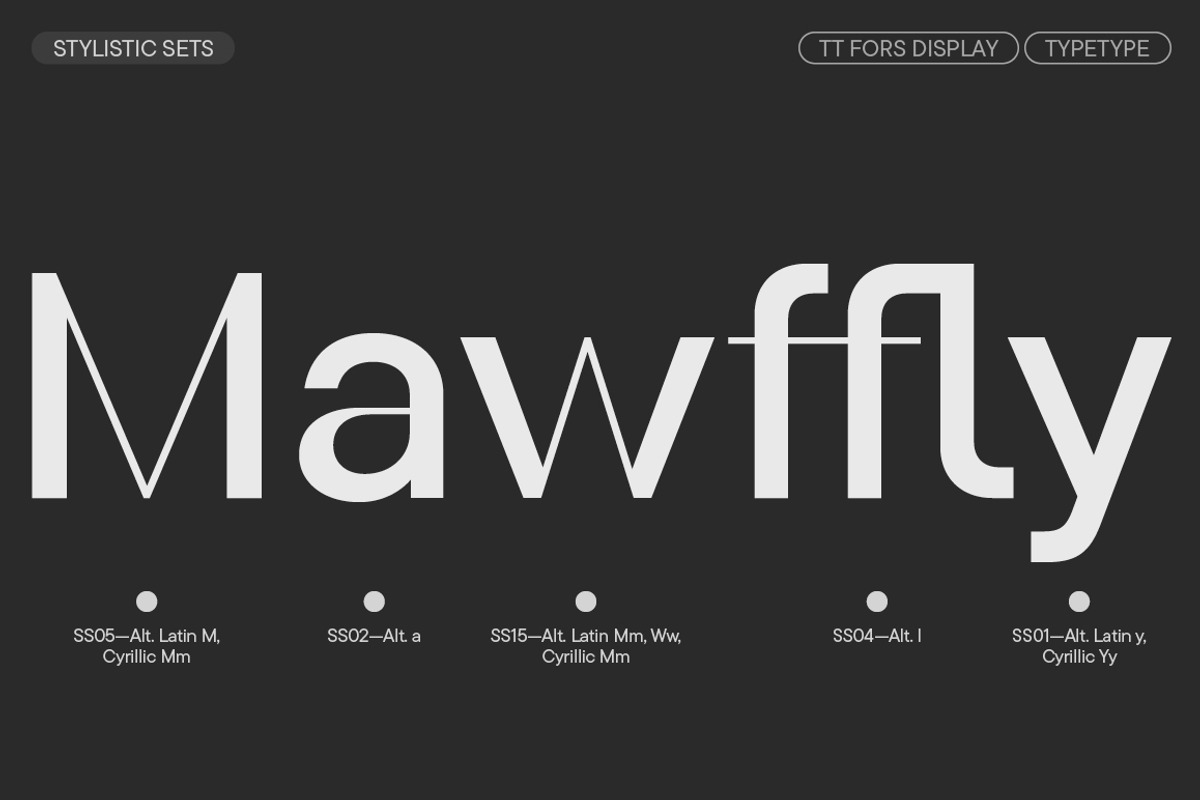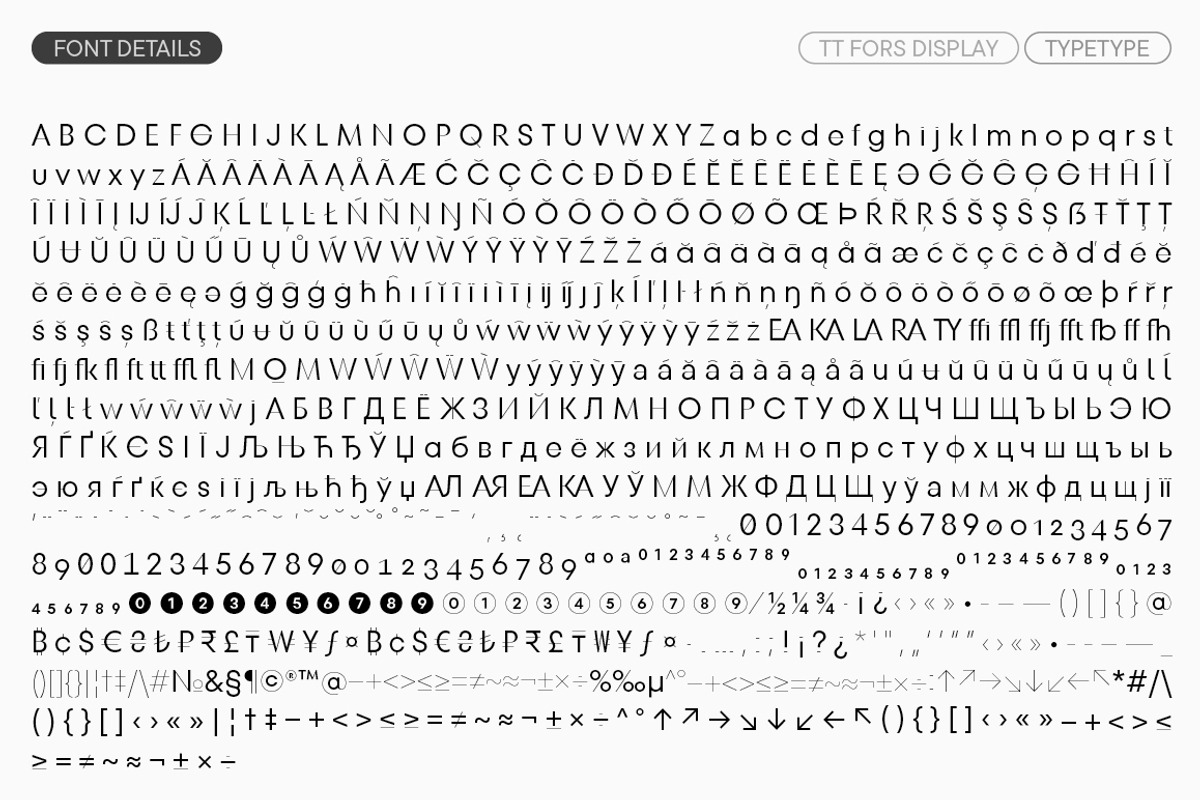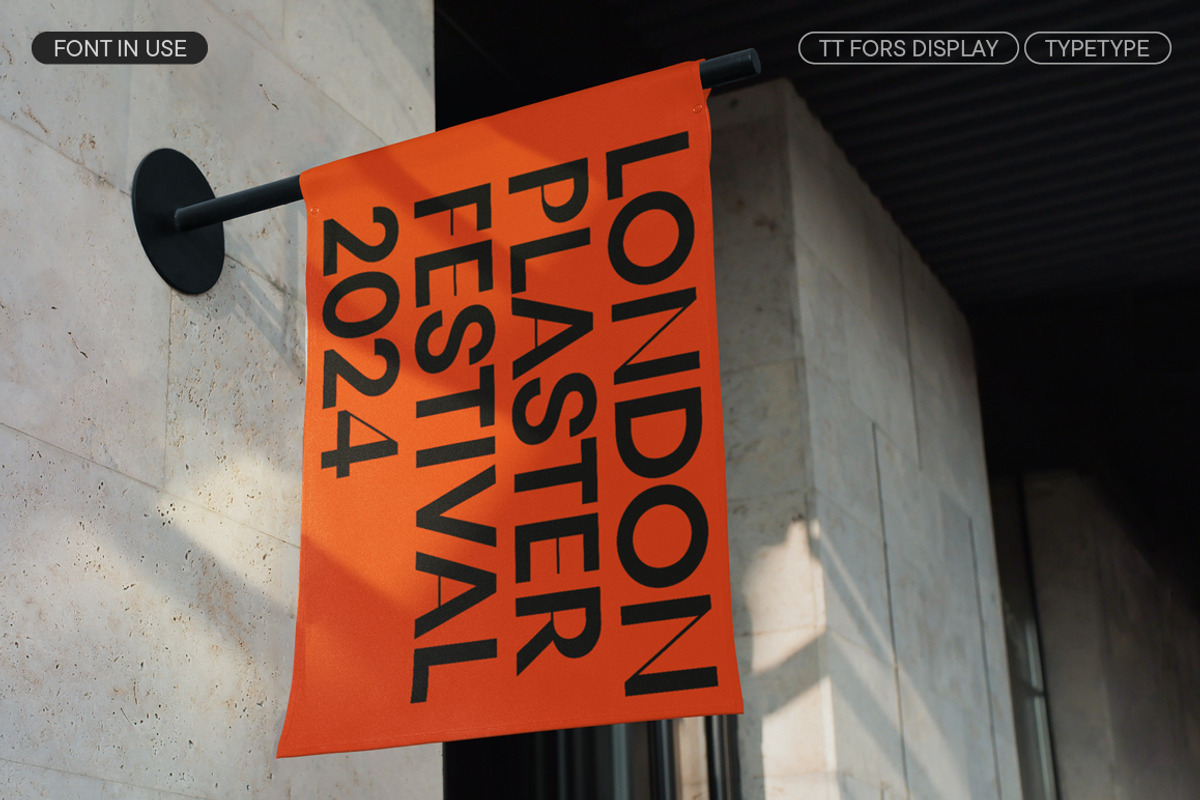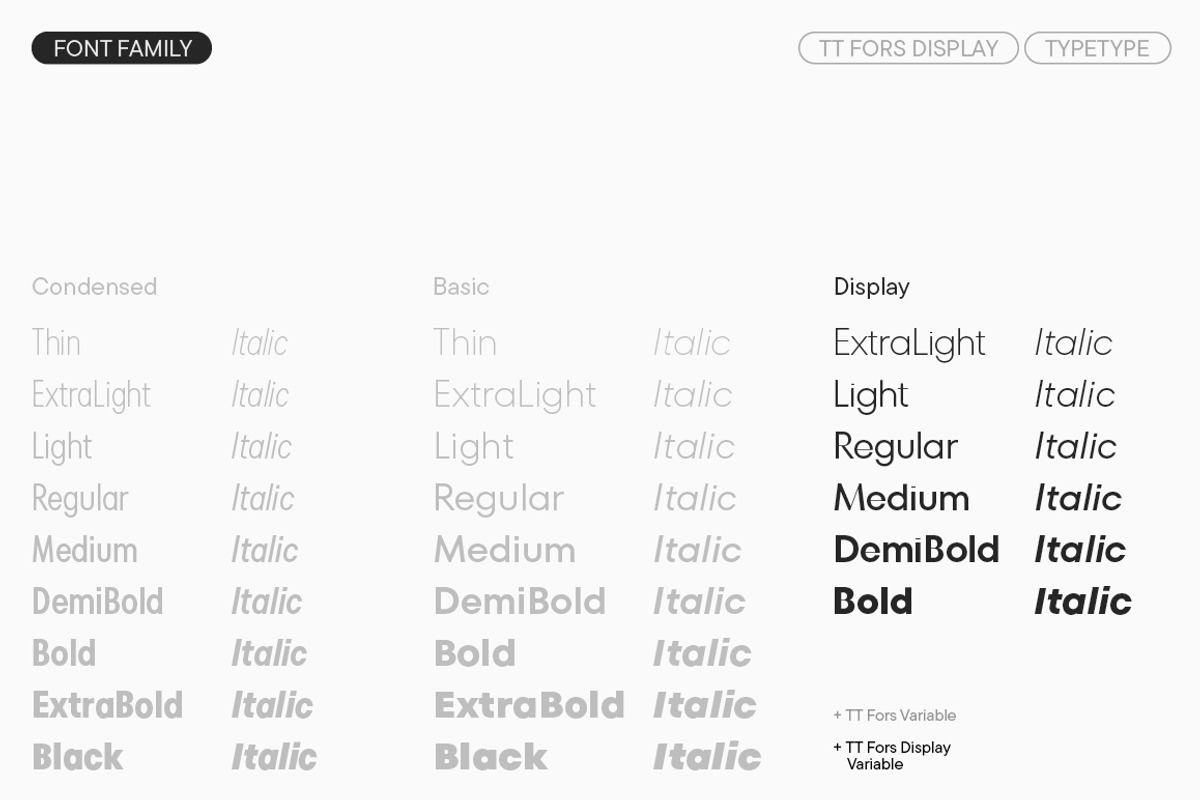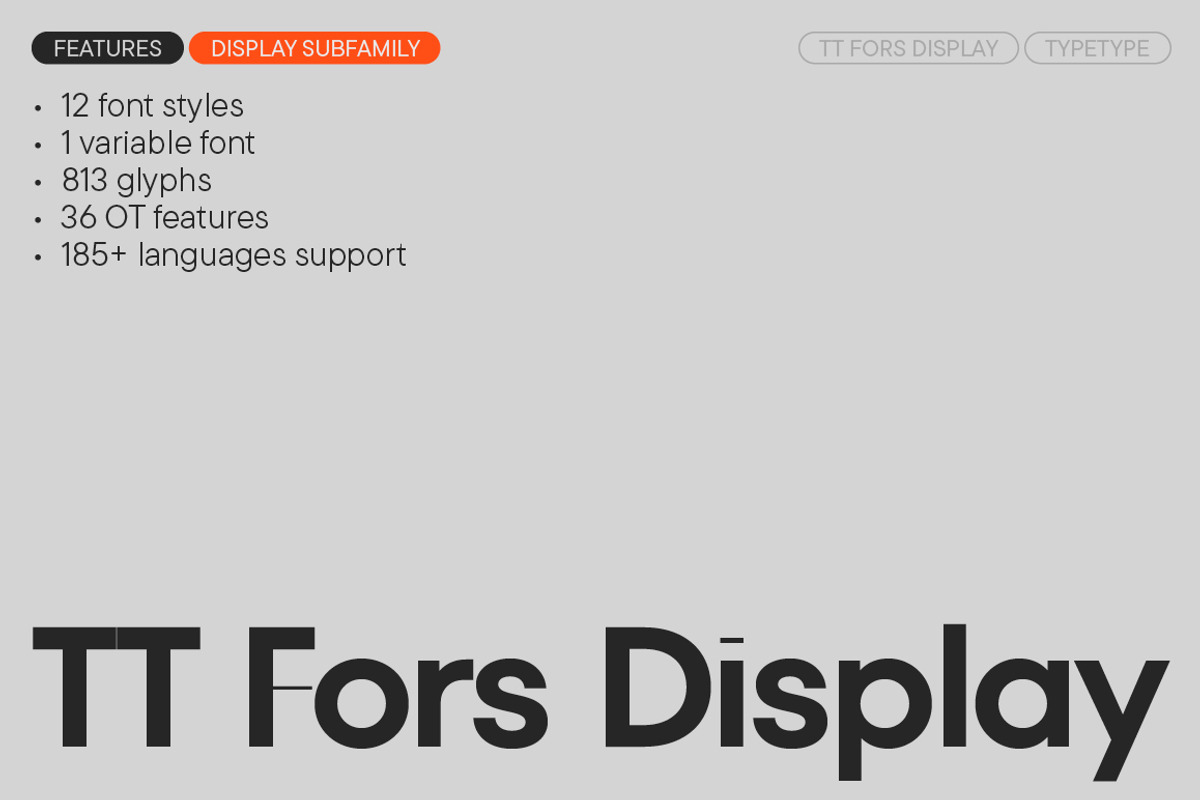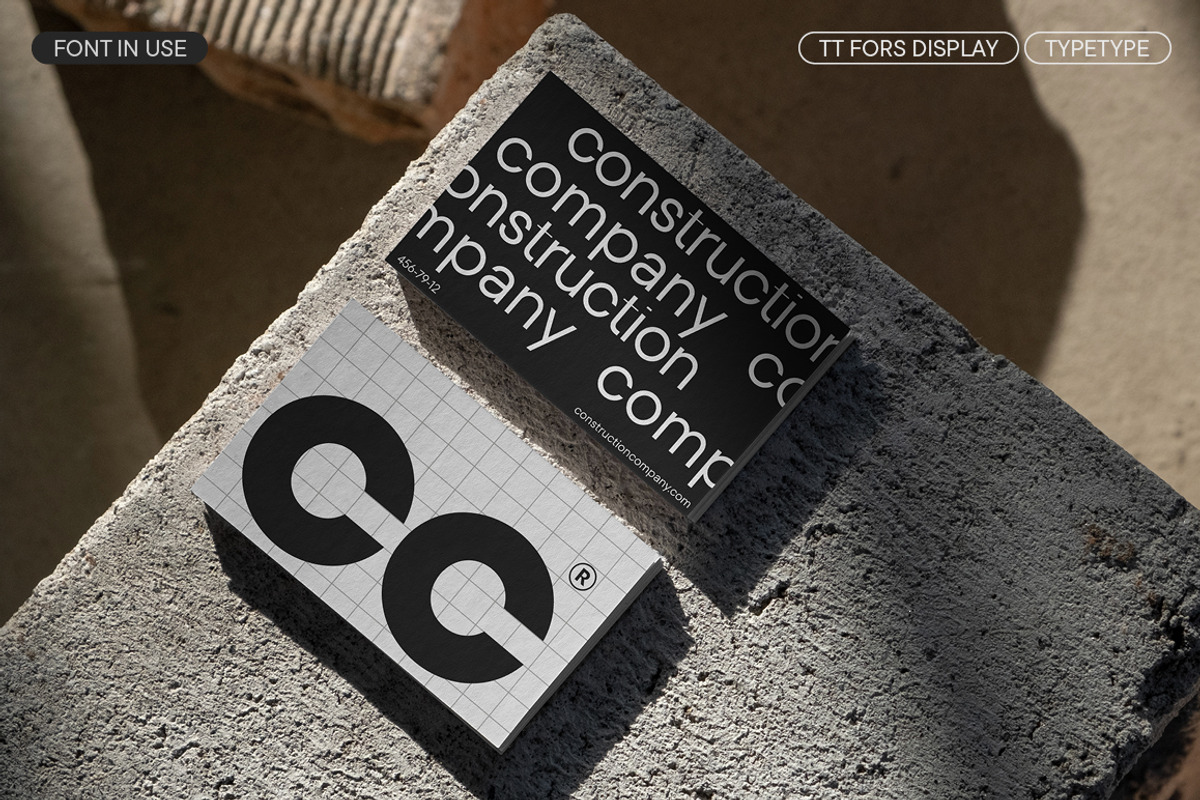
TT Fors Display
Introducing the legendary TT Fors version 2.000!
TT Fors Display is a Display version of our TT Fors font family:
- TT Fors Display - 12 styles
This functional and aesthetic typeface from the TypeType’s basic font collection has become even better: we’ve added a new subfamily, updated kerning and hinting, and enhanced the variable font.
TT Fors is a geometric sans-serif with a neutral personality and refined proportions. The typeface complements TypeType’s line of versatile sans-serifs, which already includes families like TT Norms® Pro, TT Commons™ Pro, TT Hoves Pro, TT Interphases Pro, and TT Firs Neue.
The inspiration for creating TT Fors came from studying geometric sans-serifs from the early to mid-20th century and analyzing their contribution to the visual environment of that time. At the same time, we aimed to create an advanced and highly adaptable font that can be used for any modern tasks—from branding and packaging to digital interfaces and apps. The name itself reflects its versatility: Fors derives from the word «for».
The characters in TT Fors have dynamic proportions. Their forms are as close as possible to basic geometric shapes (circle, triangle, square). Rounded characters tend towards a perfect circle, while others have narrower proportions. Sufficiently tall lowercase characters make the font even more functional. And the carefully designed geometric forms and unified construction rules allow TT Fors to be used in both large and very small point sizes.
In the display version, it was important for us to preserve the font’s clean aesthetic while introducing subtle nuances. The proportions and shapes of characters in TT Fors Display remain recognizable, but with a distinctive touch—high-contrast symbols that add character while maintaining uniformity. The set tends towards uniformity, and slightly closed terminals underscore the character of the entire typeface.
A large number of OpenType features allows designers to adapt the font to their tastes and needs. TT Fors includes ligatures, circled figures, arrows, and other stylistic alternatives and features. Additionally, the typeface includes two variable fonts. The display subfamily has two variable axes—weight and slope, while the basic subfamily has three—weight, width, and slope.
TT Fors includes:
- 50 styles: 18 upright, 18 italic, and 1 variable font in the main subfamily (Basic + Condensed), 6 upright, 6 italic, and 1 variable font in the display subfamily
- 1,044 characters in each basic subfamily style, 813 characters in each Display subfamily style
- 35 OpenType features in the basic subfamily and 36 in the Display subfamily
- Support for 185+ languages
**Full list of OpenType features: aalt, ccmp, locl, subs, sinf, sups, numr, dnom, frac, ordn, tnum, pnum, onum, lnum, case, dlig, liga, zero, calt, SS01 (Alt. Latin y, Cyrillic Yy), SS02 (Alt. a), SS03 (Alt. u), SS04 (Alt. l), SS05 (Alt. Latin M and Cyrillic Mm), SS06 (Alt. Q), SS07 (Round Dots), SS08 (Circled Numbers), SS09 (Negative Circled Numbers), SS10 (Slashed zero), SS11 (Dutch IJ), SS12 (Catalan Ldot), SS13 (Romanian Comma Accent), SS14 (Turkish i), SS15 (Alt. Latin Mm, Ww and Cyrillic Mm), SS16 (Alt. Cyrillic Zhe, Ef), SS17 (Alt. Cyrillic De, Tse, Shcha), SS18 (Alt. Punctuation and Math Symbols)